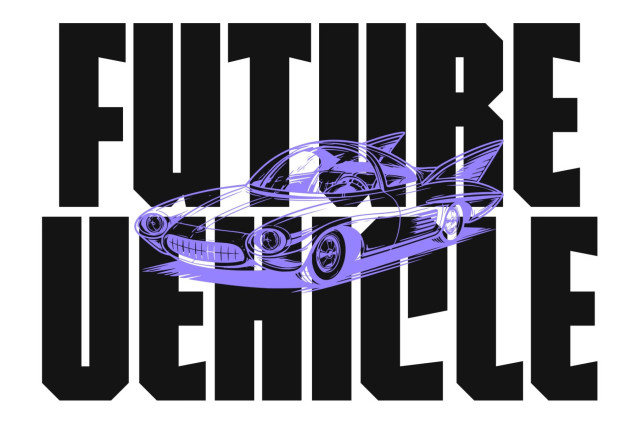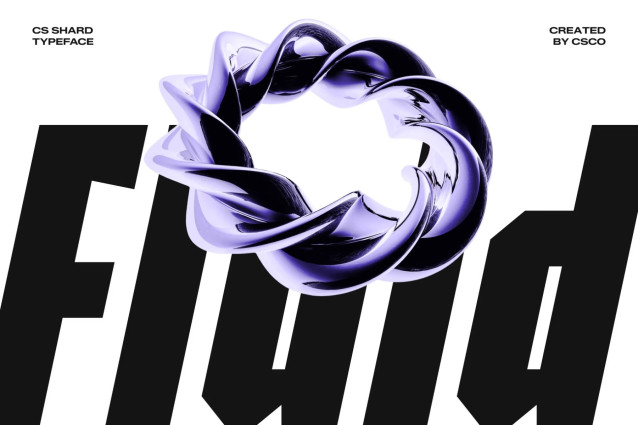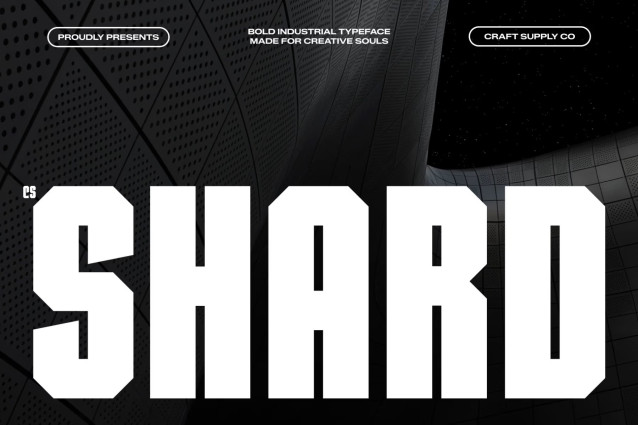
CS Shard – Industrial Font
CS Shard – Bold Industrial Display Sans Serif: Where Geometric Power Meets Athletic Precision
Extra-Bold Letterforms with Compact Strength
This is a bold industrial display sans serif featuring extra-bold geometric letterforms, compact proportions, and a commanding visual presence. Designed for maximum impact, its dense construction creates typography that feels powerful, confident, and highly legible, making it ideal for bold headlines and attention-grabbing display applications.
Chamfered Corners with Industrial Character
This font brings a rugged industrial aesthetic to contemporary typography. These precisely cut details introduce a mechanical, engineered quality that enhances its bold personality while reinforcing its modern and functional appearance. The result is a typeface that feels sharp, durable, and unmistakably distinctive.
Varsity Spirit with Modern Athletic Energy
This font delivers typography that communicates strength, performance, and determination. Its bold forms and compact proportions evoke the confidence of athletic branding while maintaining the clean sophistication of modern geometric design. This balance makes it equally suited for energetic sports graphics and contemporary commercial branding.